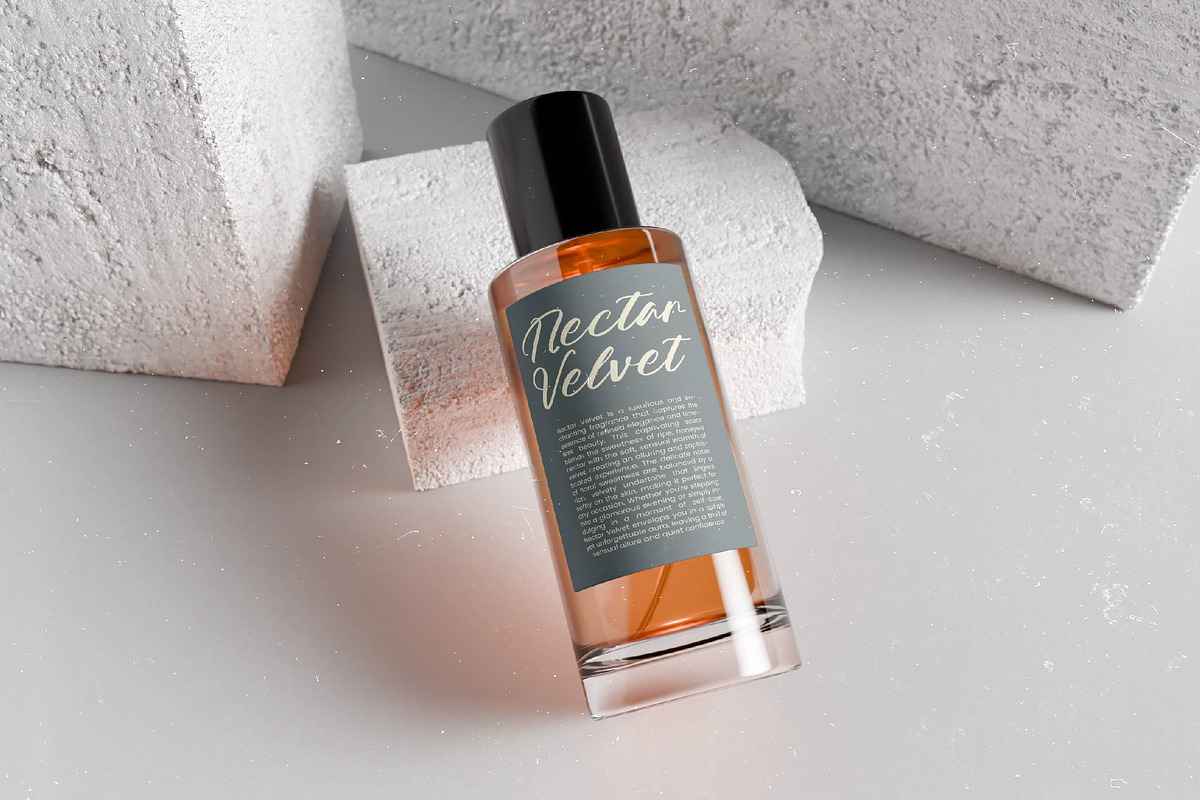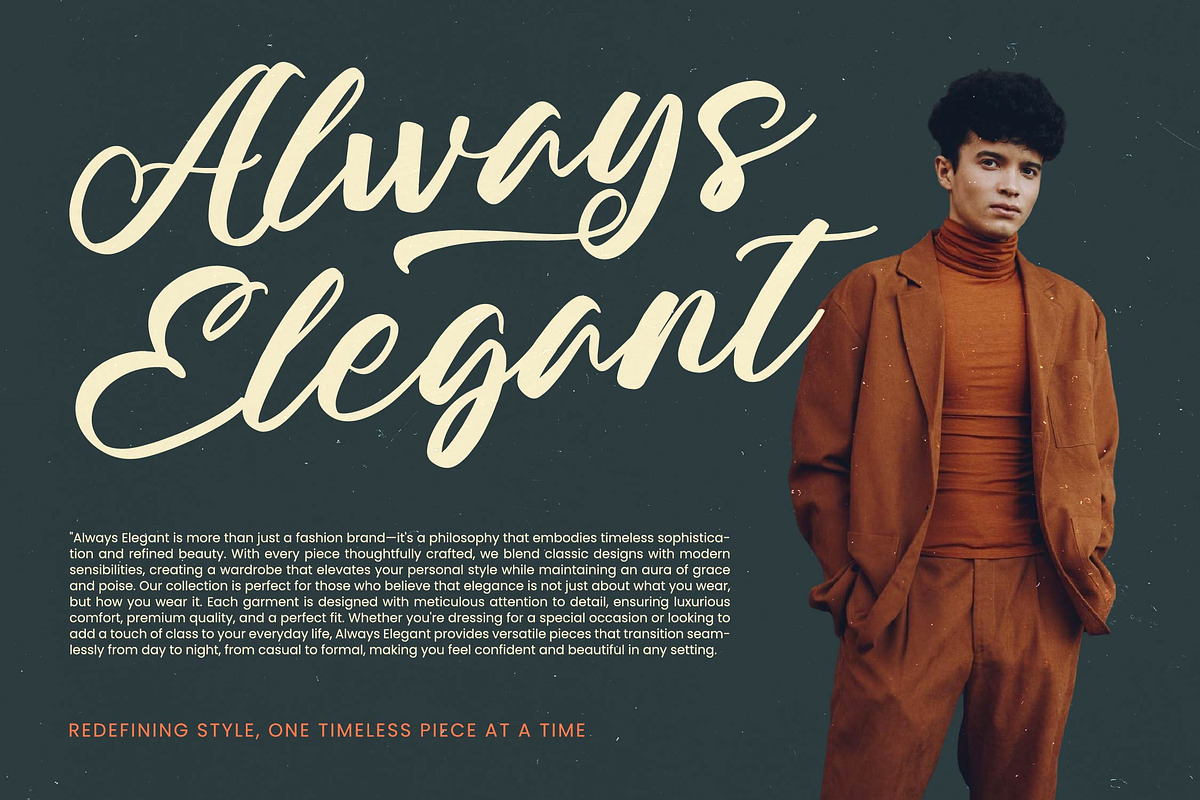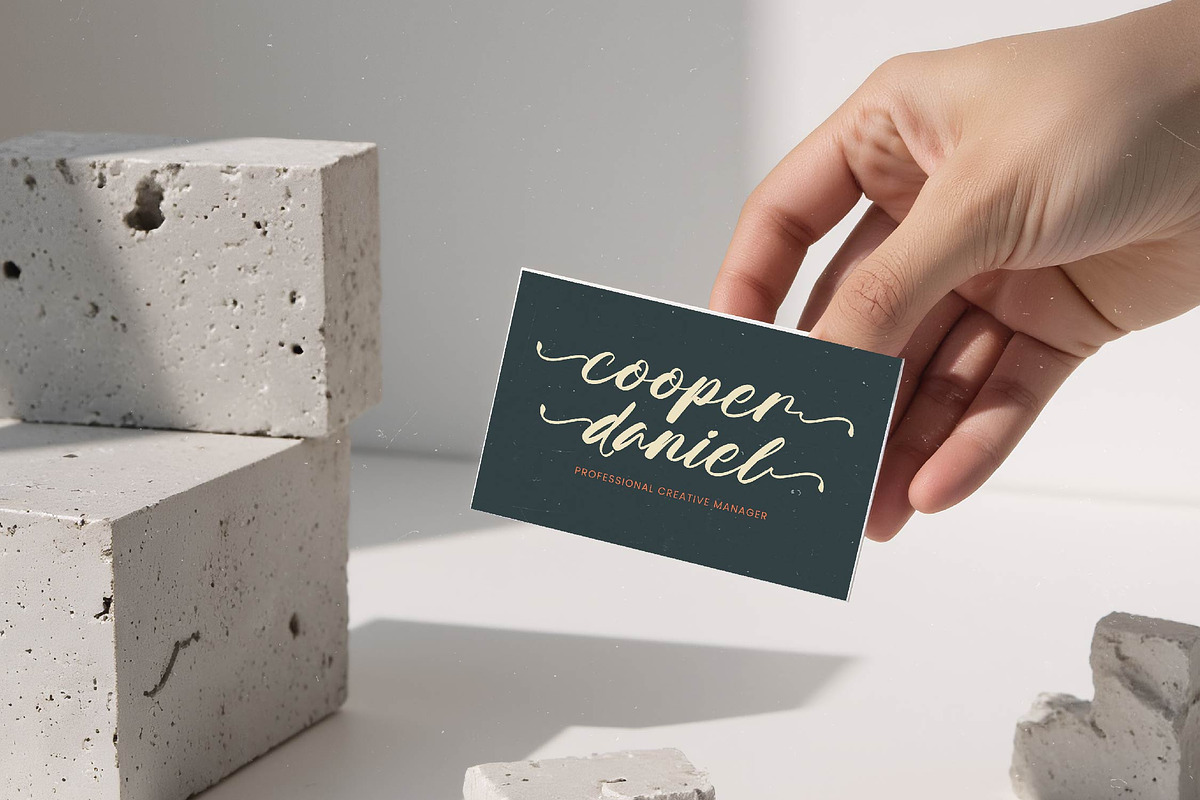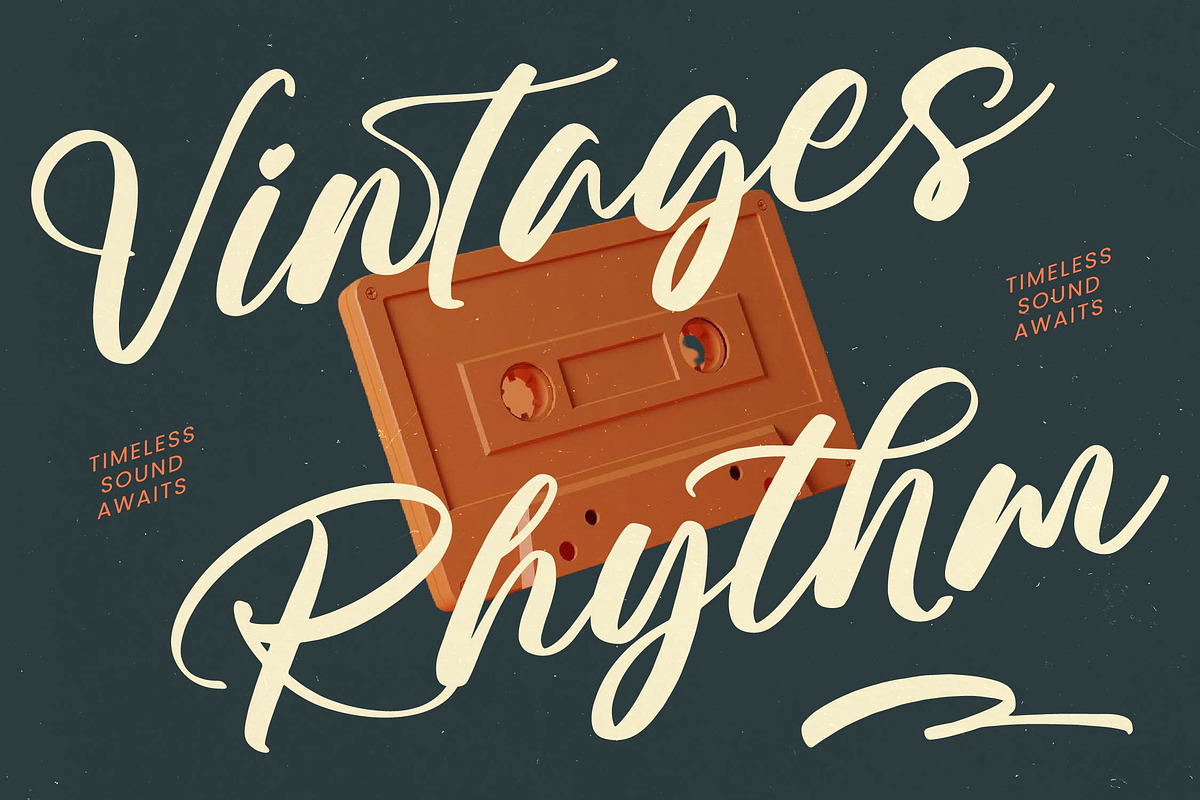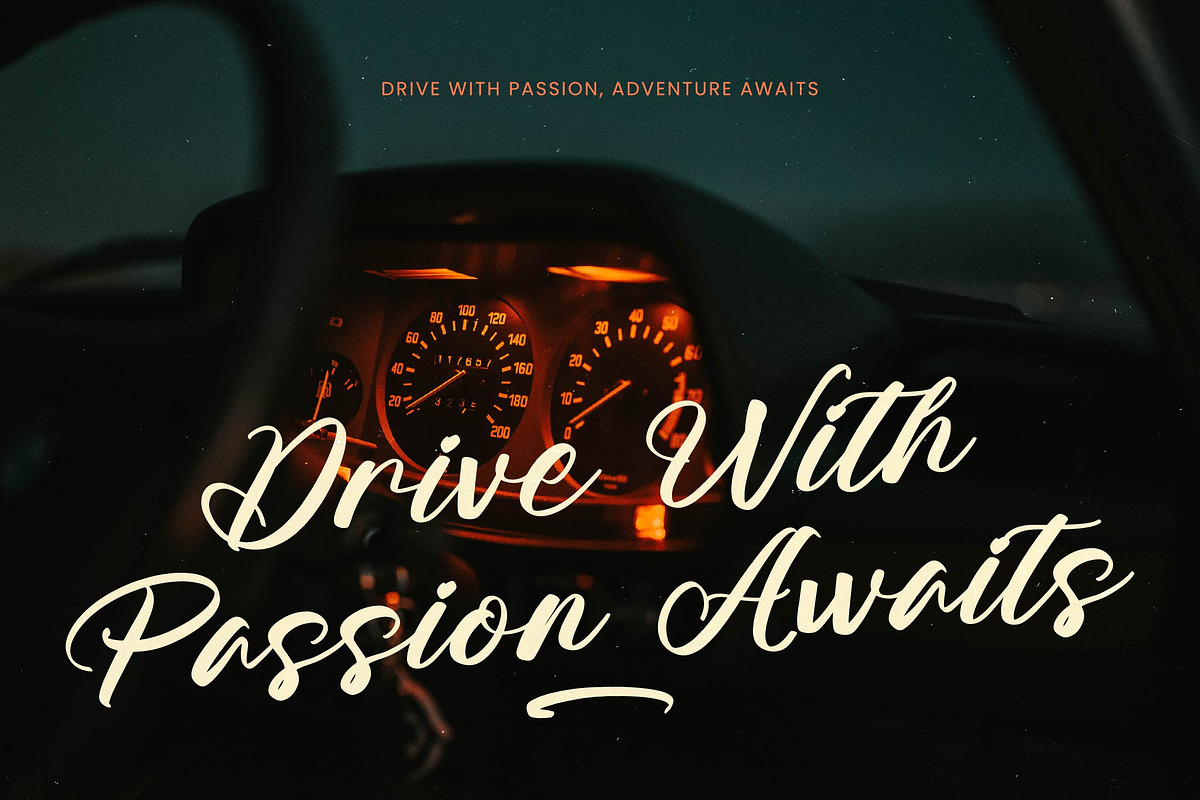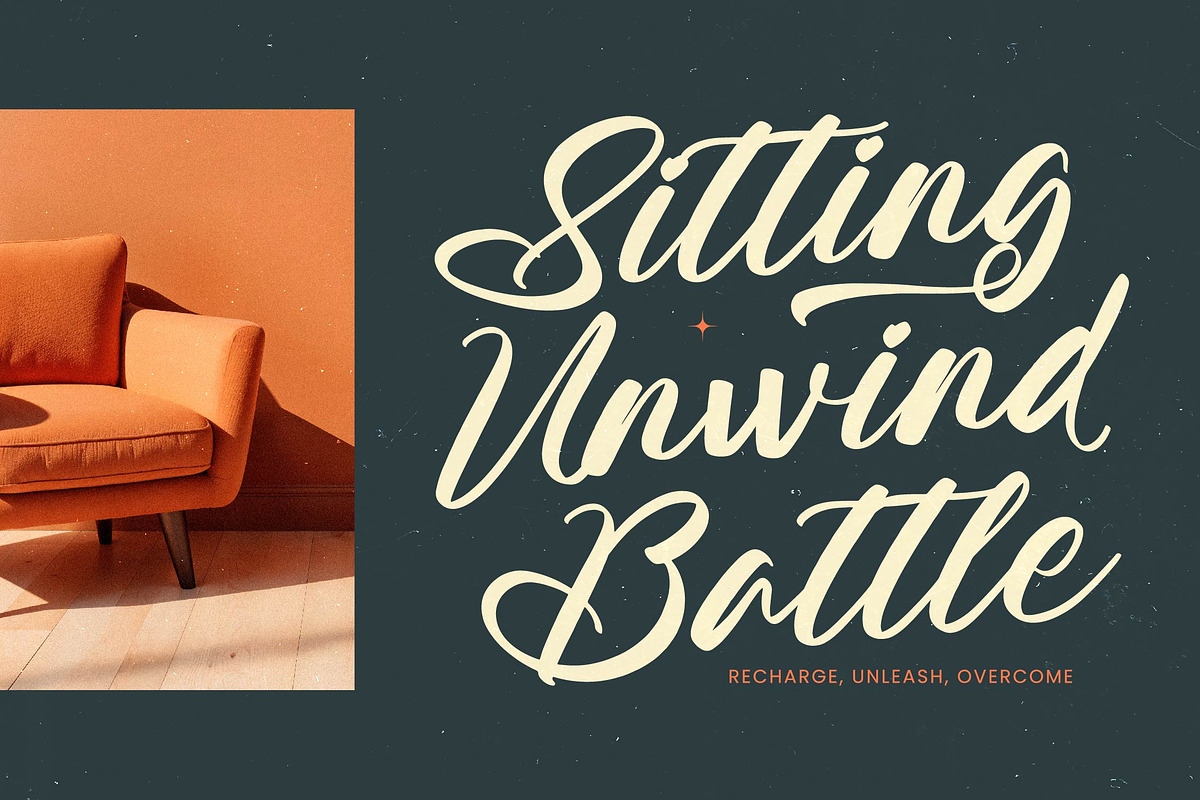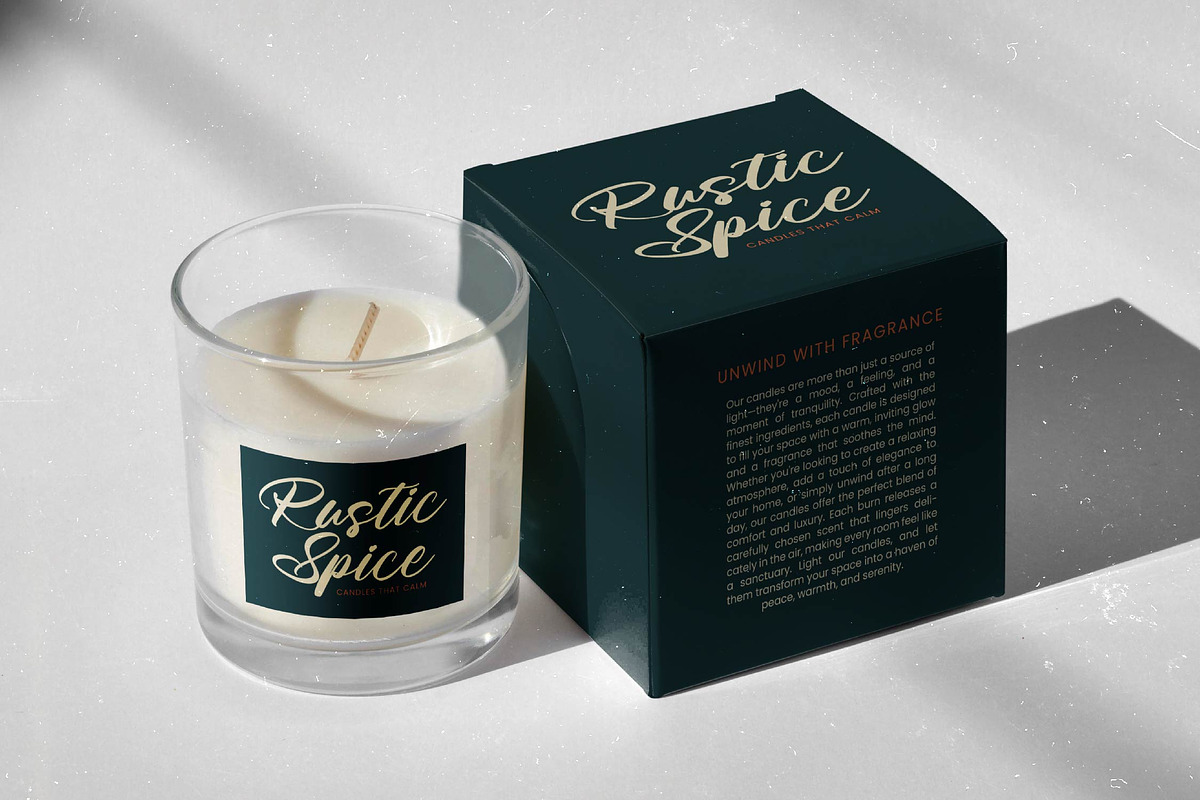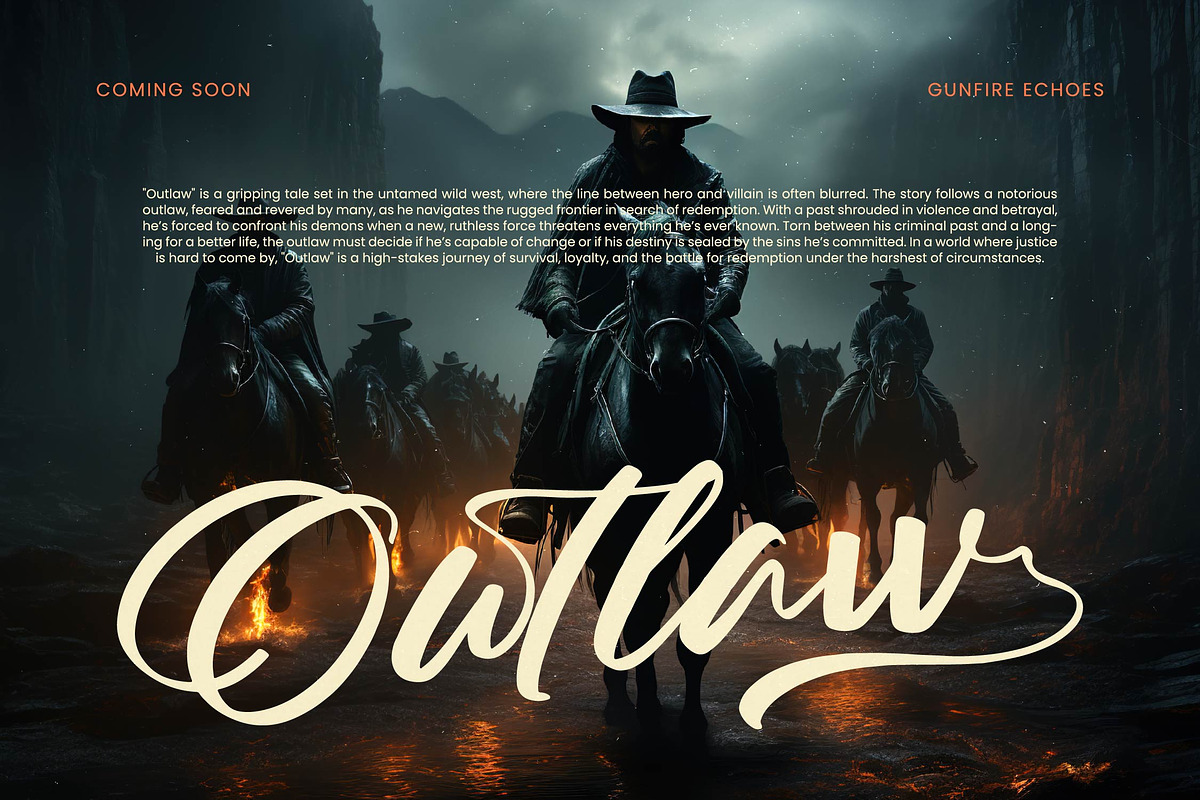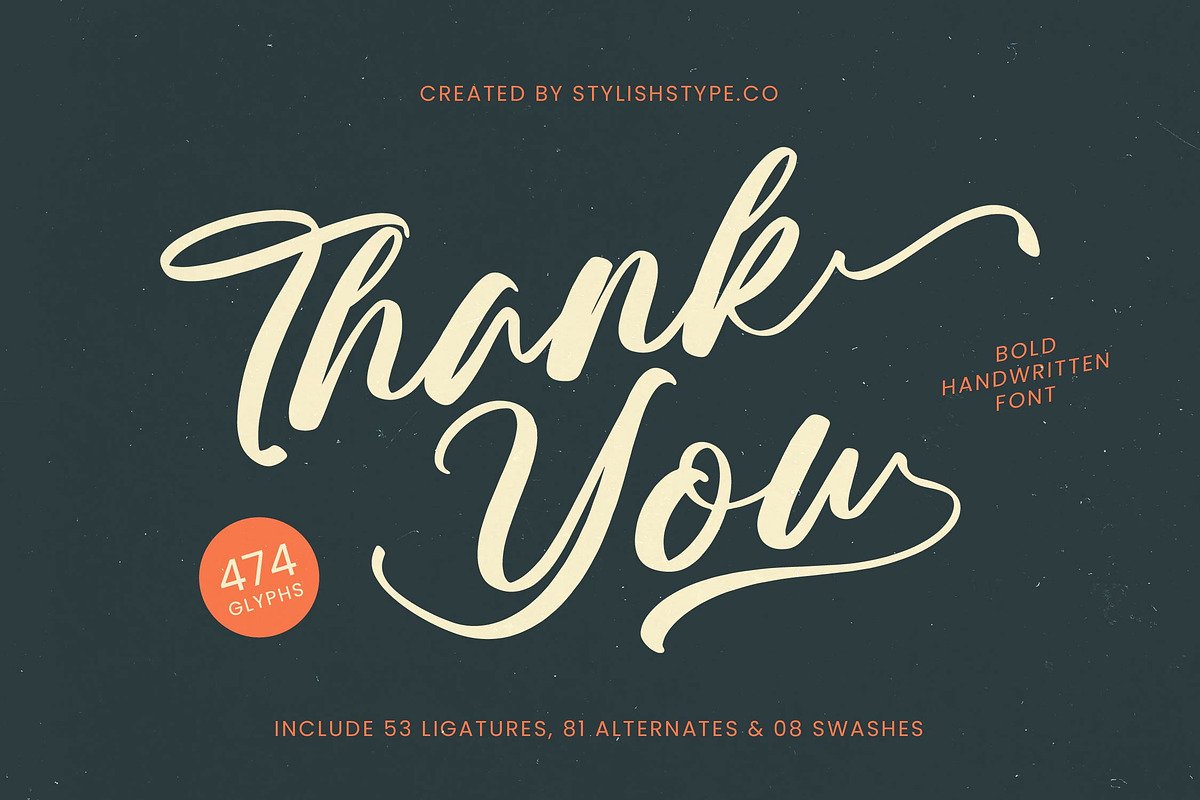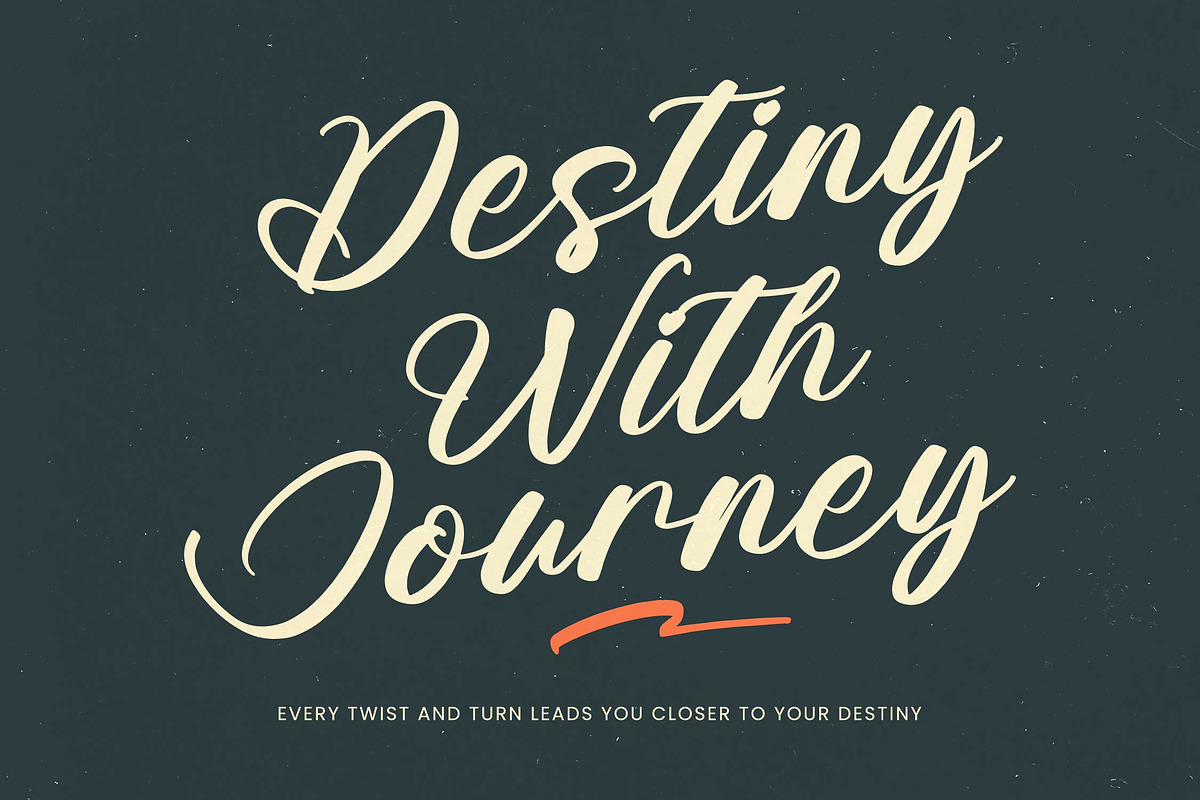
Outhlyn Funtica Bold Handwritten
Outhlyn Funtica - Bold Handwritten Font , from Stylishtype.Co , Suitable for any projects such as: logos, branding projects, homeware designs, product packaging, mugs, quotes, posters, shopping bags, t-shirts, book covers, name card, invitation cards, greeting cards, label, photography, watermark, special events, and all your other luxury and beautiful projects that need a Luxury Script taste.
- 53 Ligature 81 Alternates & 08 Swashes